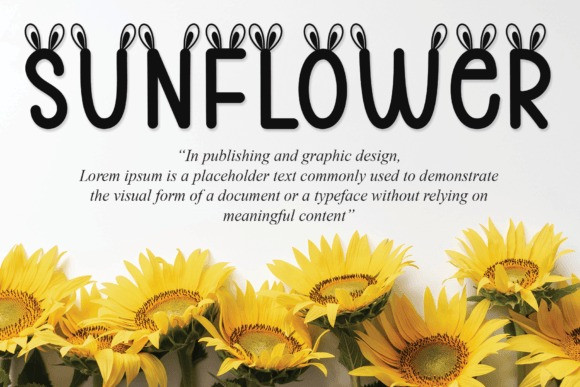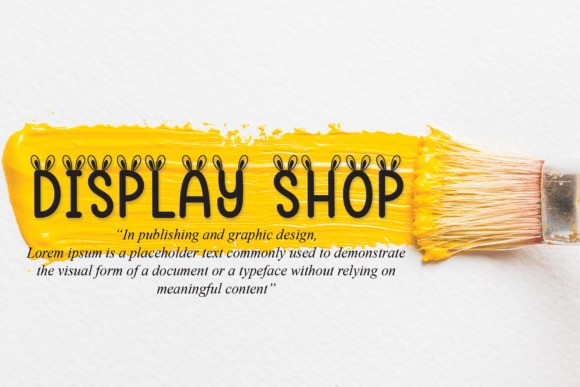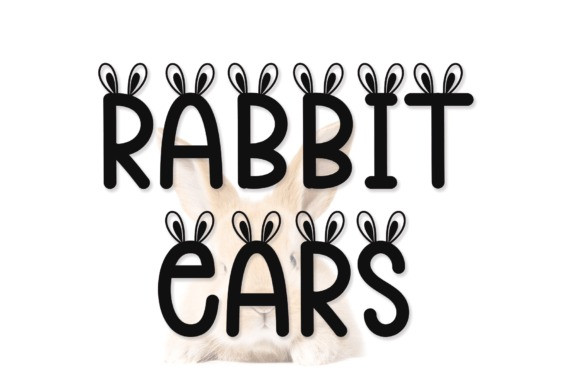
Rabbit Ears Font
Rabbit Ears Font is a fun and casual display font. No matter the topic, this font will be an incredible asset to your fonts’ library, as it has the potential to elevate any creation.